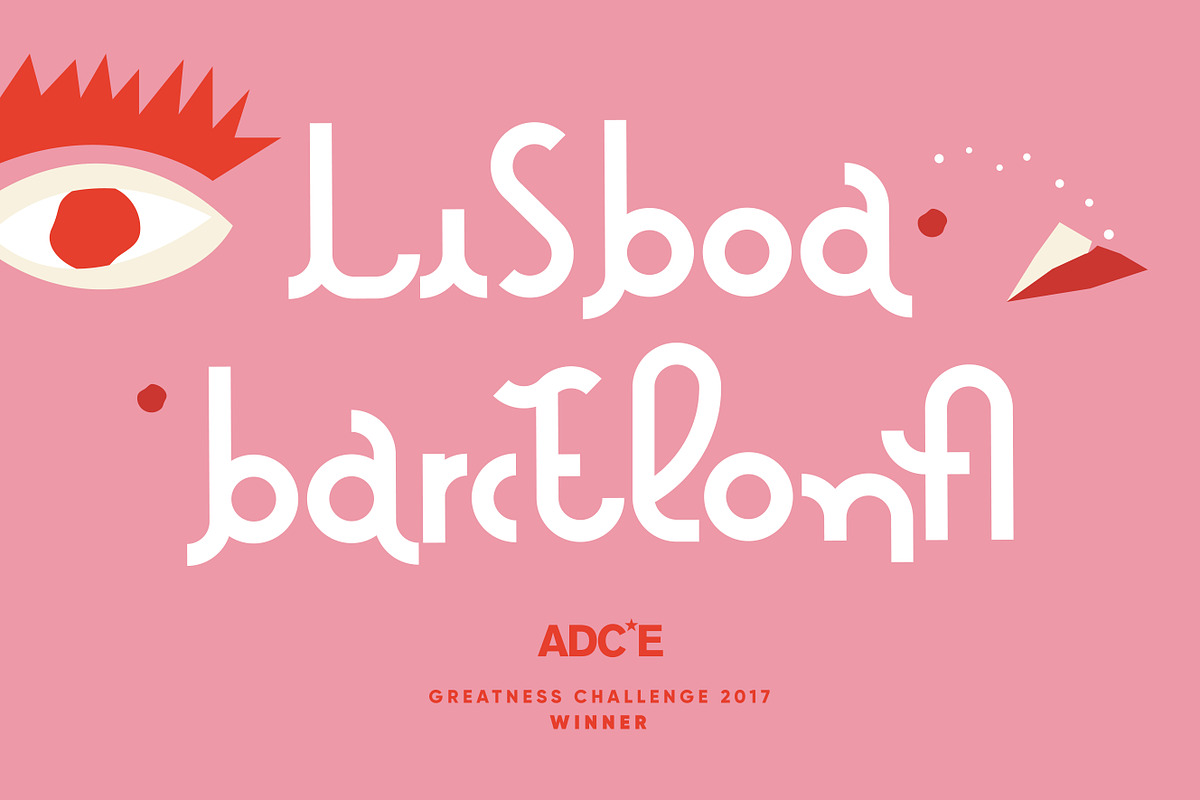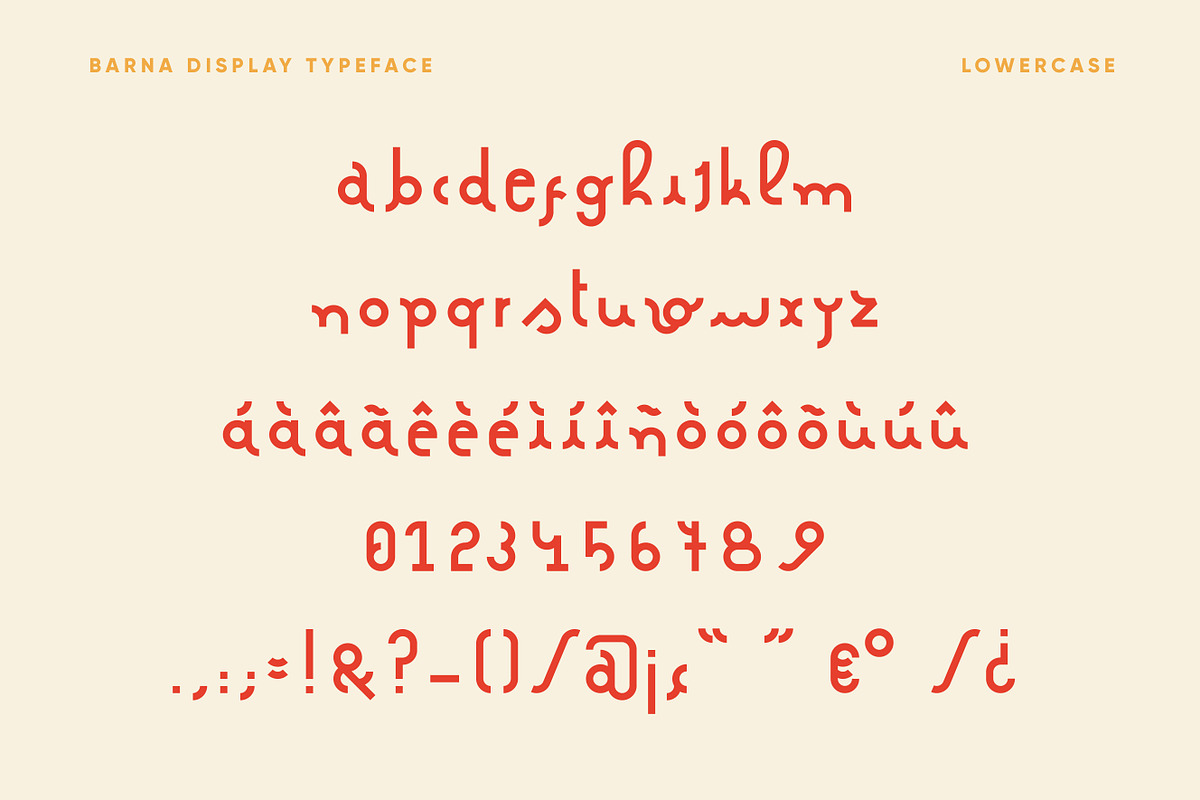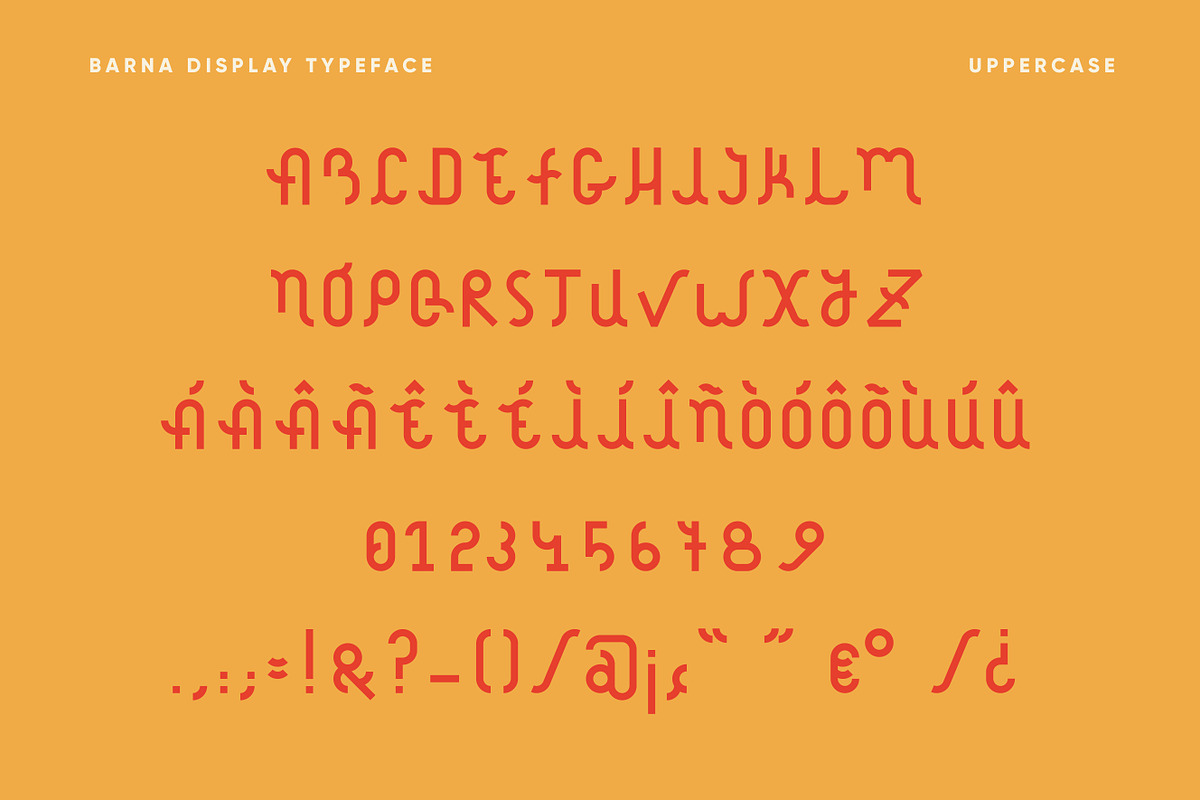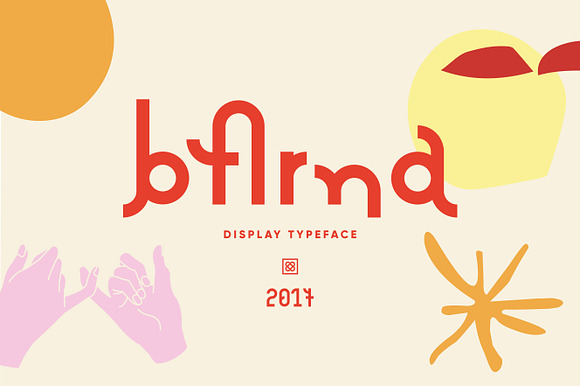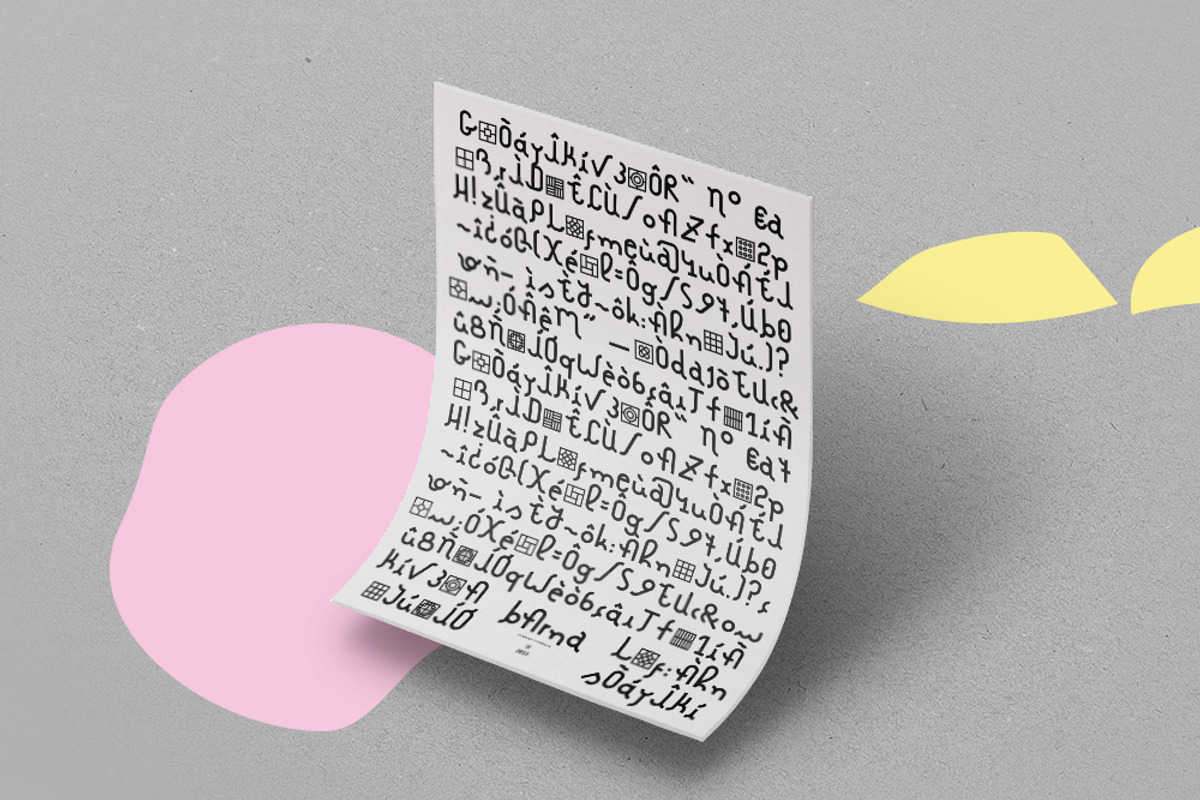
Barna Typeface
Barna is a display typeface inspired by the vibrant spirit of Barcelona. Based in the geometric shapes of the city's most famous street-walk tiles "panots", this font is also playful and fun due to its misalignment.
Includes Uppercase, lowercase, numbers, symbols and other glyphs